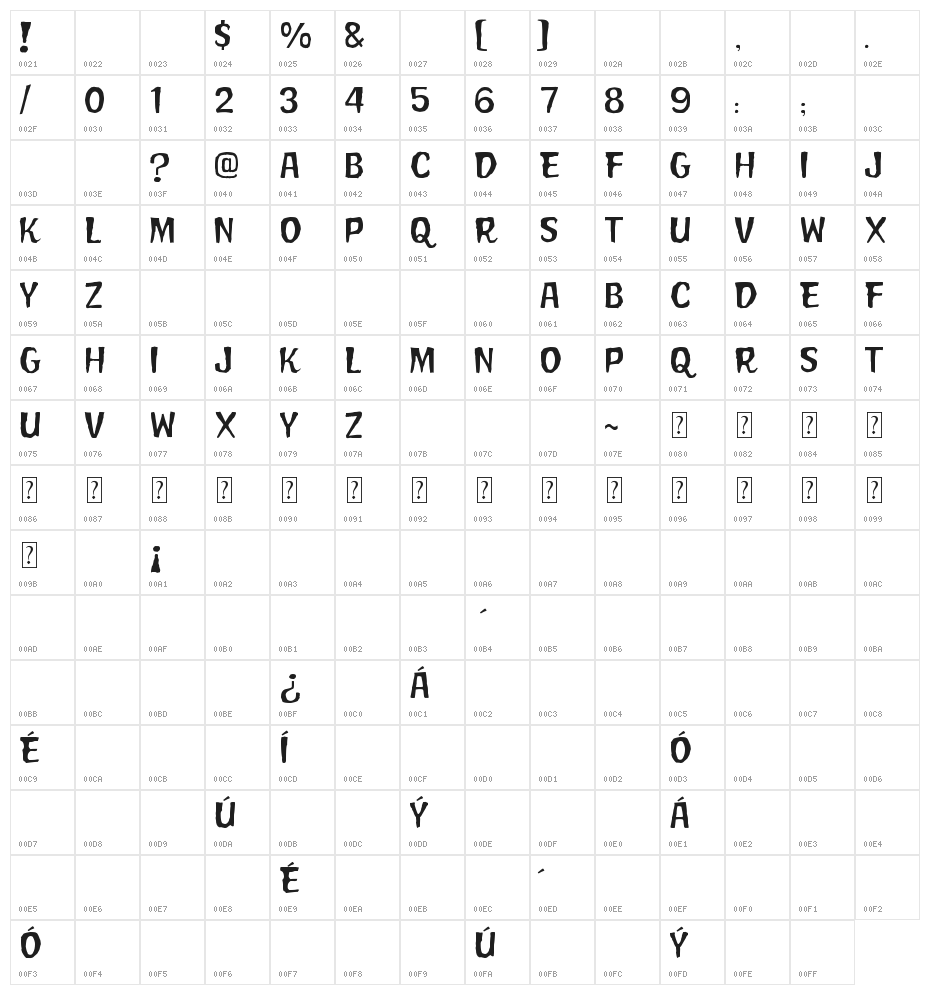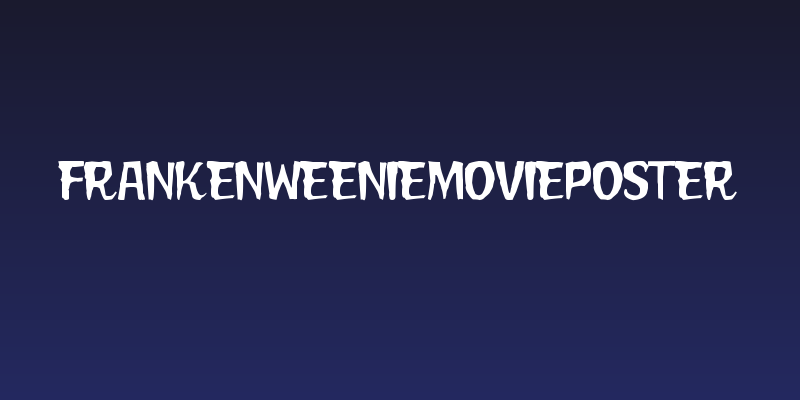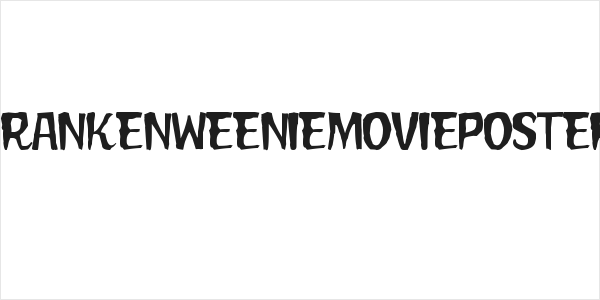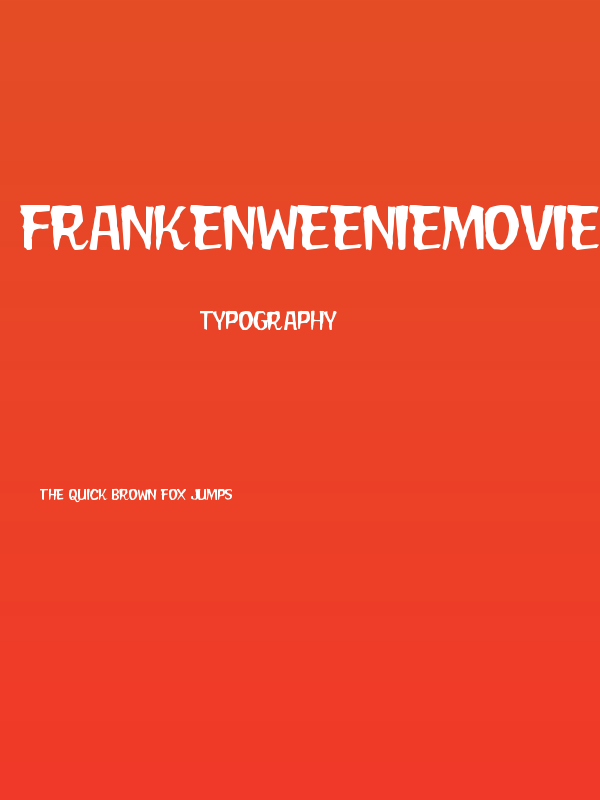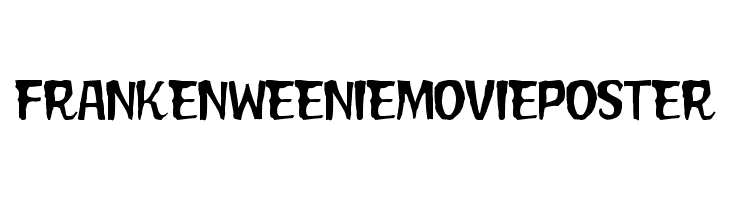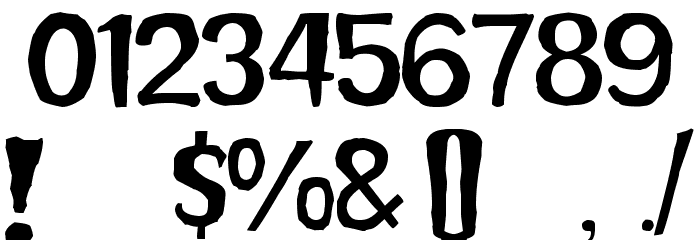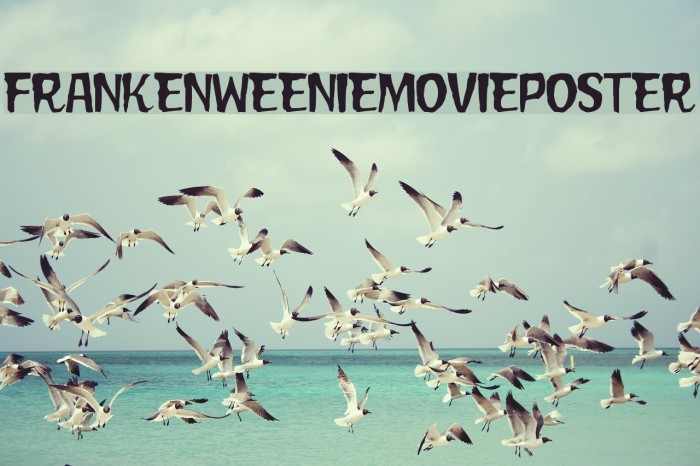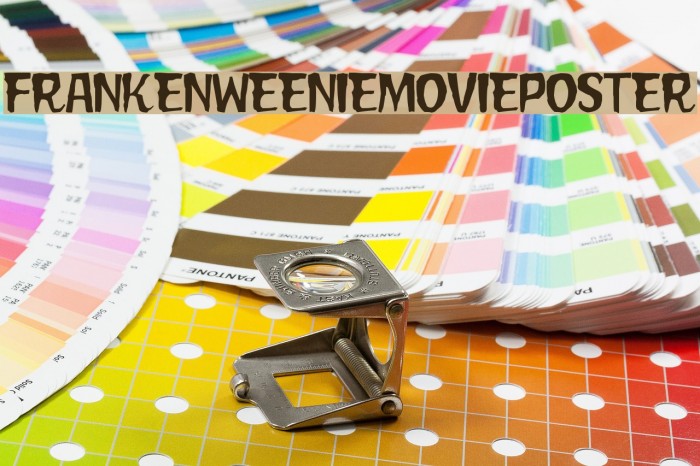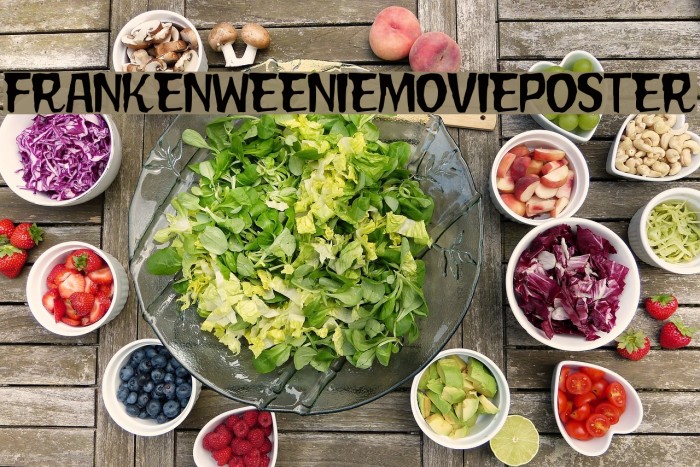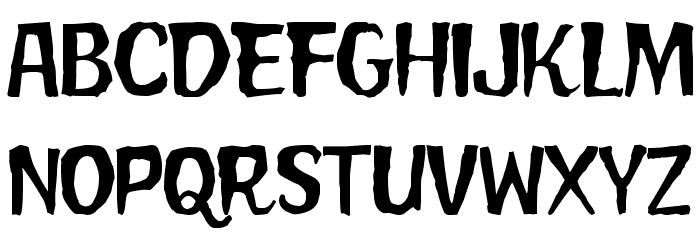
FrankenweenieMoviePoster Font
FrankenweenieMoviePoster Description
This font features a quirky and playful design with irregular, hand-drawn strokes that give it a whimsical and slightly eerie appearance. The characters are bold and have a distressed texture, adding to the font's unique personality. The uppercase and lowercase letters maintain a consistent style, with exaggerated curves and uneven lines that create a sense of movement and energy. The numbers and special characters follow the same design principles, ensuring a cohesive look across all glyphs. This font is perfect for projects that require a touch of creativity and a hint of the unconventional.
| Overall Style | Whimsical, Eerie, Playful |
| Proposed Projects | Ideal for Halloween-themed designs, movie posters, children's book covers, and creative branding projects. |